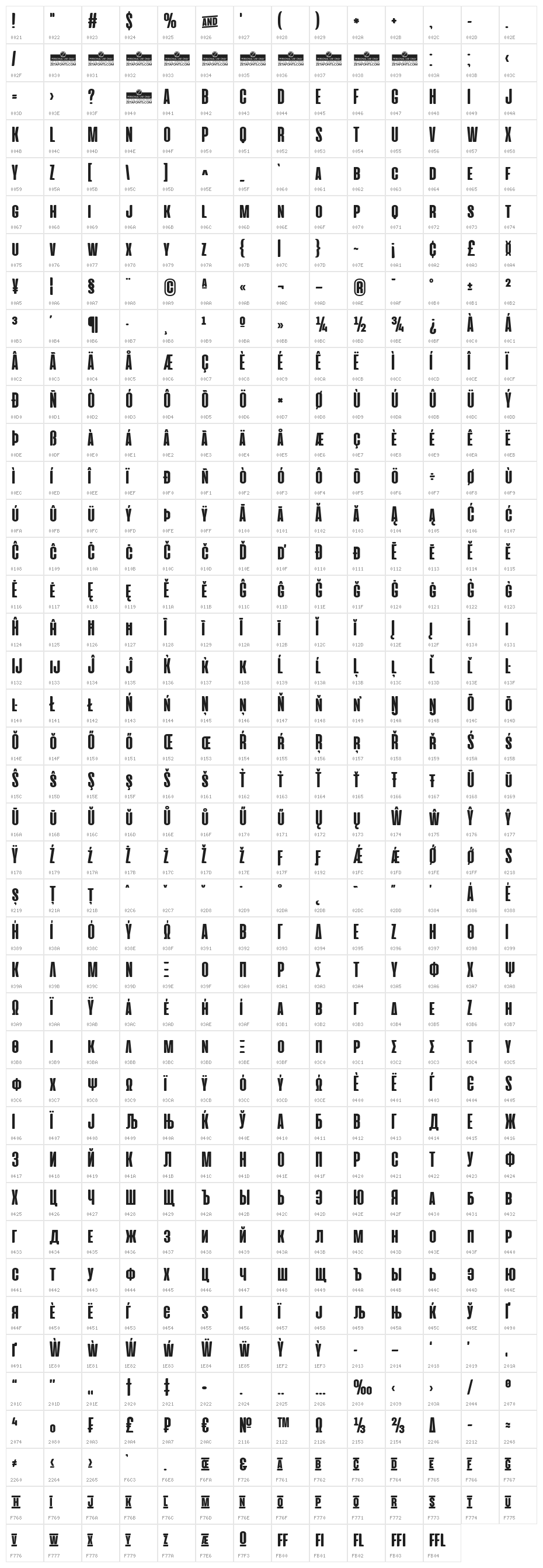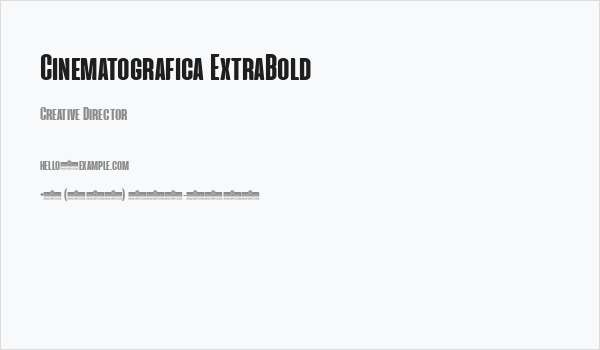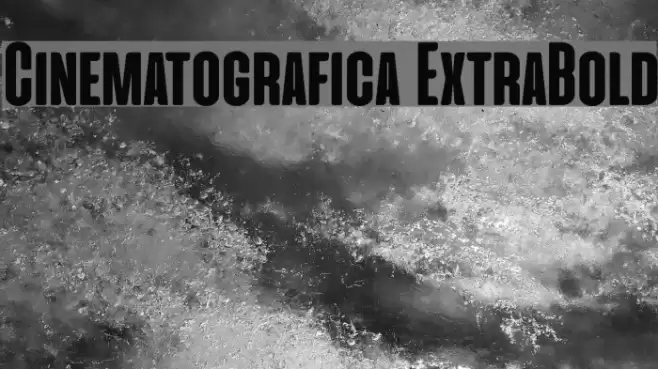
Cinematografica ExtraBold Font
Cinematografica ExtraBold Description
This typeface is characterized by its bold and impactful presence, featuring thick, uniform strokes that convey strength and authority. The uppercase letters are tall and commanding, with a slight curvature that adds a touch of modernity to the otherwise traditional block style. The lowercase letters maintain the same boldness, ensuring consistency across text. The numerals are equally robust, providing a cohesive look throughout. Special characters are designed with the same attention to detail, ensuring they integrate seamlessly with the rest of the font. This font's design is ideal for making a strong visual statement, whether in print or digital media.
| Proposed Projects | Ideal for movie posters, headlines, branding materials, and any project requiring a strong visual impact. |